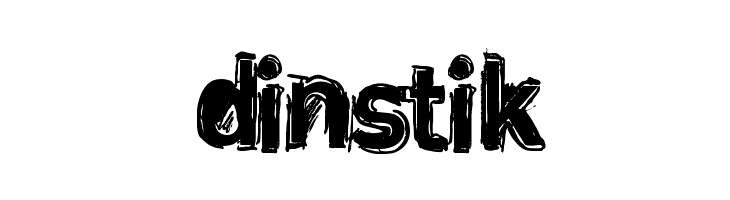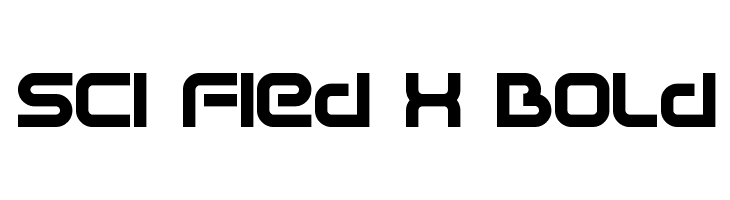
A bold, modern font with elegant curvature and strong character presence.
A bold, geometric font with sharp angles and a blocky structure.
A bold, playful comic-style font with rounded, handwritten characters.
A bold, rugged font with a hand-carved, textured appearance.
A classic serif font with elegant strokes and high contrast.
A bold, playful decorative font with a bubble-like, three-dimensional appearance.